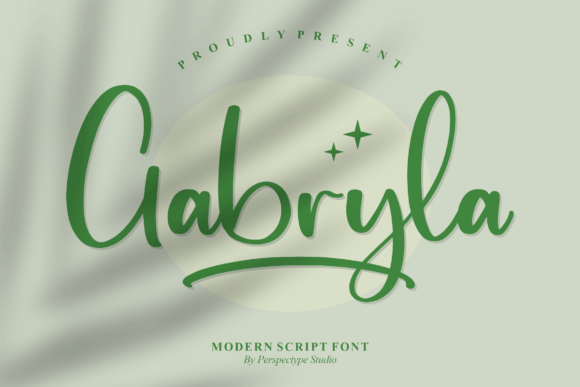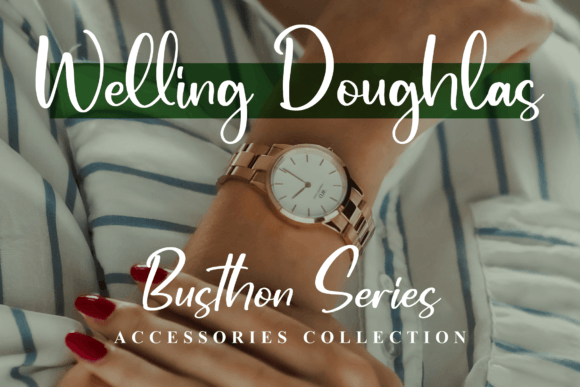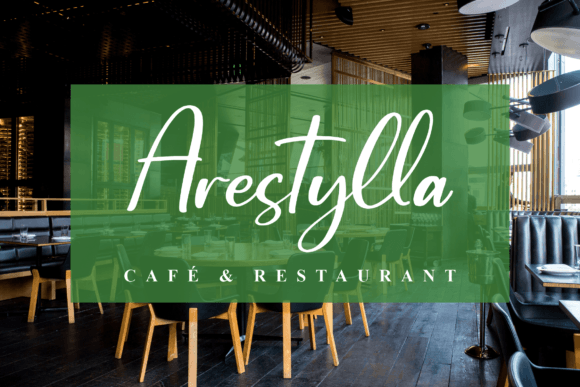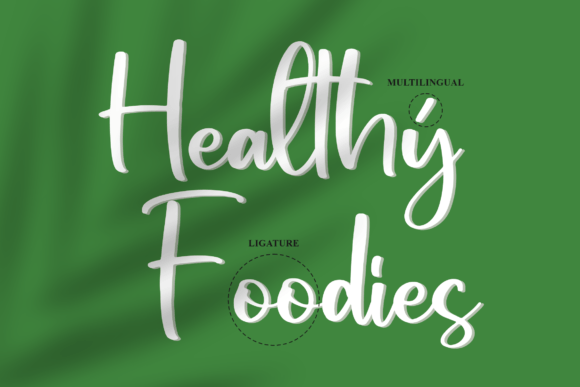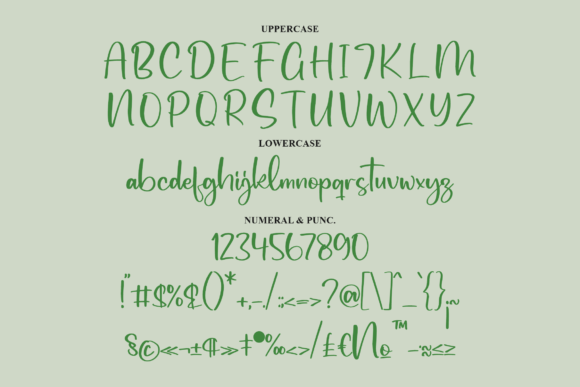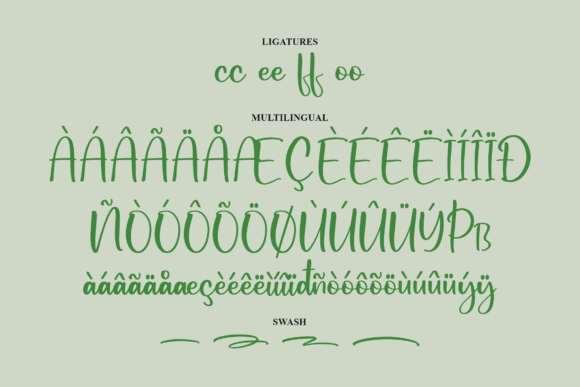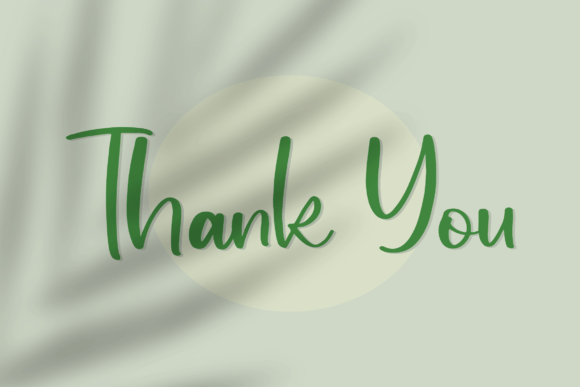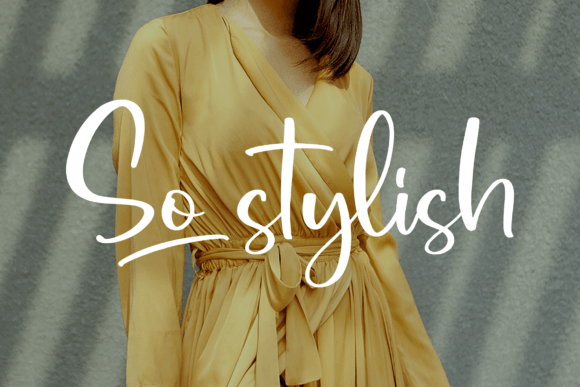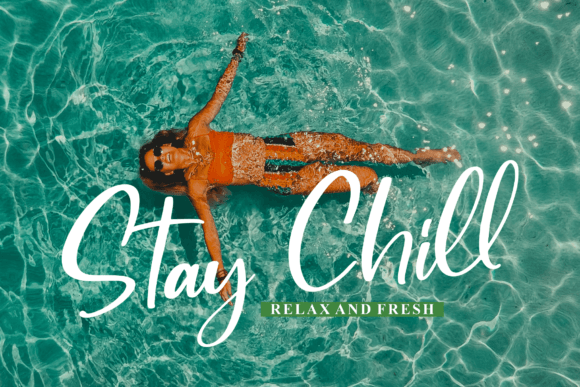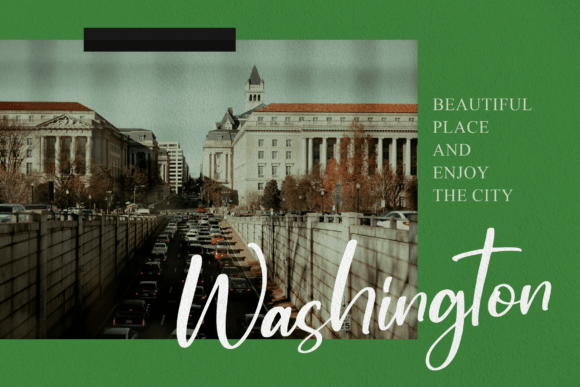
Gabryla Font
About Gabryla Font
“Gabryla: Where Modern Elegance Meets Handwritten Sophistication in Typography
Introducing Gabryla, a modern handwritten font that seamlessly blends elegance with sophistication. Perfect for a myriad of design projects, Gabryla exudes a contemporary charm that elevates your creations to new heights. Whether you’re working on logos, branding materials, homeware designs, product packaging, mugs, quotes, posters, shopping bags, T-shirts, book covers, name cards, invitation cards, greeting cards, labels, photography, watermarks, special events, or any project that demands a touch of modern elegance, Gabryla effortlessly infuses your designs with a sense of refined beauty and artistic flair.
The allure of Gabryla lies in its modern yet handwritten style, where each letter is meticulously crafted to embody a balance of sleek sophistication and artistic charm. Its smooth strokes and contemporary detailing create a visual harmony that captures the essence of modern elegance with a touch of handwritten grace. Imagine your logos adorned with Gabryla’s modern, flowing letterforms, exuding confidence and style. Picture your product packaging featuring its sleek handwritten flair, instantly commanding attention on the shelves. With Gabryla, your designs radiate with a contemporary elegance, making them visually striking and emotionally resonant.
One of Gabryla’s standout features is its versatility. Its modern elegance and handwritten sophistication make it suitable for a wide range of applications, from branding and homeware designs to social media graphics and special event invitations. Whether you’re designing trendy T-shirts or crafting chic book covers, Gabryla enhances your creations with its effortless modernity, making them stand out with a unique blend of elegance and artistic appeal.
Moreover, Gabryla is more than just a font; it’s an embodiment of contemporary beauty and creative expression. Its modern elegance and handwritten sophistication resonate with individuals who appreciate the subtlety of artistic craftsmanship, making it a favorite among designers and enthusiasts seeking a font that exudes modern charm and refined style. Gabryla becomes a symbol of your creativity, allowing you to add a touch of contemporary elegance to your creative endeavors.
In a world where modern elegance meets handwritten sophistication, Gabryla helps you make a statement. It speaks the language of artistic flair and creative expression, resonating with those who appreciate the beauty of modern design with a touch of handwritten grace. Whether you’re designing for branding, homeware, or any creative endeavor, Gabryla becomes your trusted companion, guiding you toward design excellence.
So, why settle for ordinary when you can embrace the extraordinary with Gabryla? Let this modern handwritten font be the canvas for your creative expressions, and watch as your projects come to life with contemporary elegance, refined style, and artistic flair. Let your creativity flow, and let Gabryla be the brushstroke that paints your ideas into visually captivating masterpieces, leaving a lasting impression on the hearts of your audience. Elevate your designs with Gabryla, where modern elegance meets handwritten sophistication, and transform your creations into works of art that inspire and captivate.”